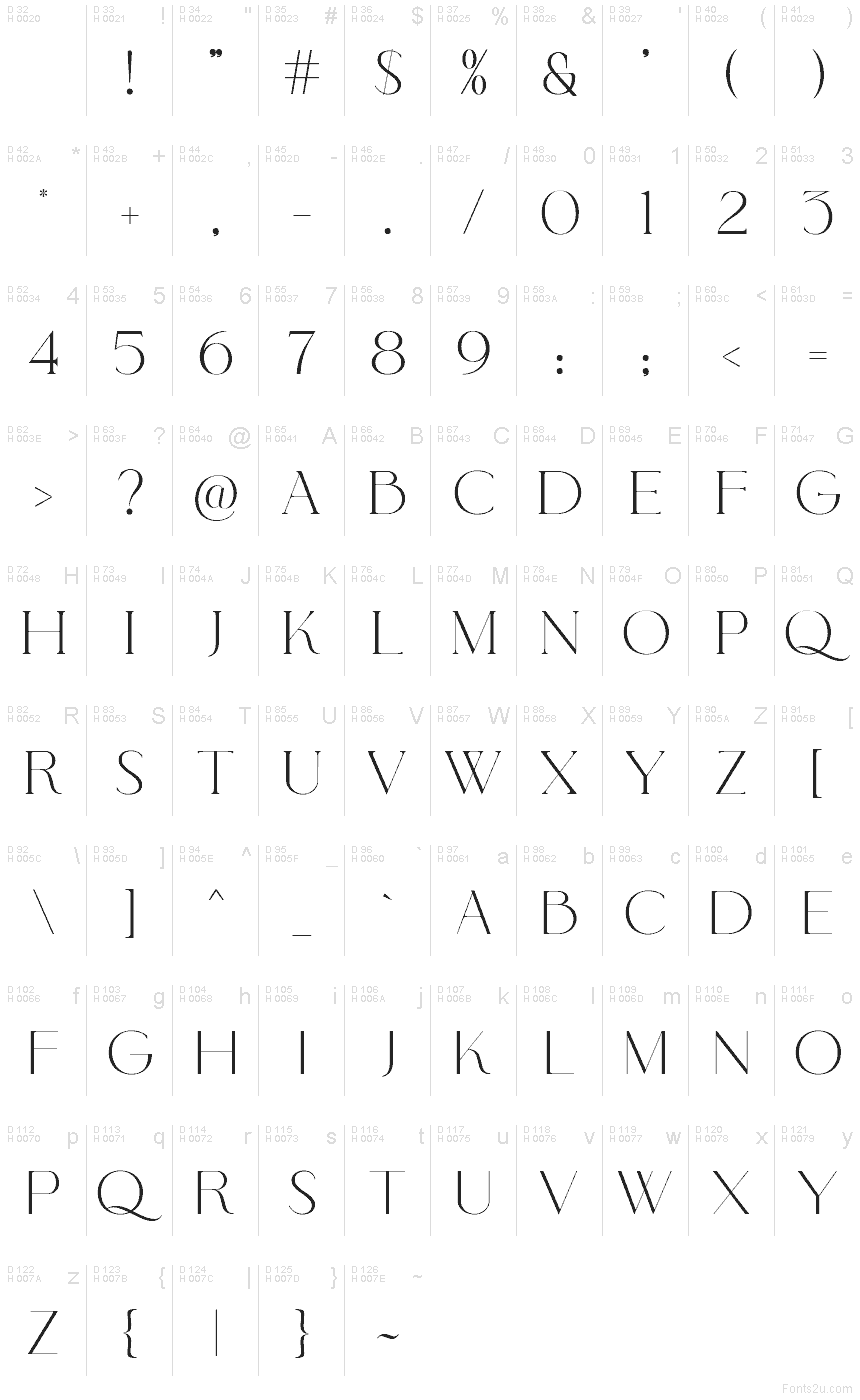
CRISTOLADISPLAY
Cristola Display font by Masa Type is an elegant and sophisticated light serif. Its minimalistic design features a refined, delicate style suitable for achieving a modern aesthetic. Innovative and mesmerizing, it can attract attention with simple letters and enhance overall project creativity.
This free serif font is all about versatile use that you can enjoy in various fields related to fashion, branding, packaging, print typography, modern art exhibitions’ promotion posters or postcards for minimalist homes. You can also easily apply it to magazine covers or evens logo designs.